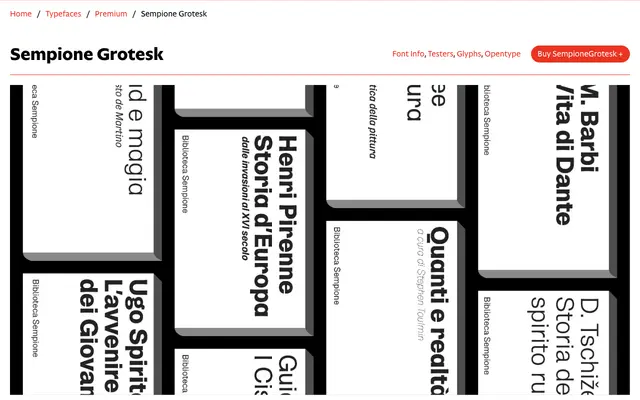
Sempione Grotesk
A Swiss-tradition grotesque by Andrea Amato with a generous x-height, seven weights with cursive counterparts, and an unusually rich set of OpenType features borrowed from serif typography.
Developed over a decade from 2009 to 2019, the family spans Thin to Black with matching Cursive italics that echo true italic construction rather than simply slanting the upright forms. Alongside the expected lining and oldstyle figures, tabular and proportional sets, and small capitals, the family includes ligatures, ornaments and decorative features rarely found in a grotesque. A companion family, Sempione Modern, extends the system with letterforms recalling early 20th-century sanserifs and a slanted italic style.
A Swiss-tradition grotesque with horizontal stroke terminations and near-uniform letter widths, placing it firmly in the neo-grotesque lineage, though enriched with ligatures and ornaments more typical of serif typography.